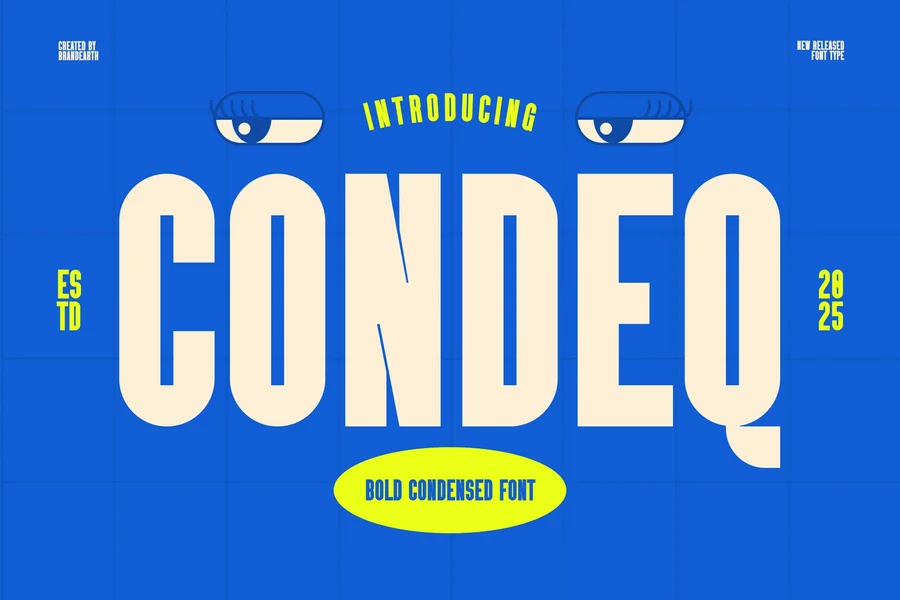
Condeq Bold Condensed
Condeq is a bold condensed display typeface with a powerful geometric build and assertive presence. Designed with blocky proportions, tight spacing, and clean vertical stress, it delivers immediate visual impact, perfect for loud headlines and expressive branding. Its uppercase-only set includes punctuation, numerals, and multilingual characters, offering flexible use across various languages and design formats. Optimized for both print and digital use, Condeq maintains sharp readability and strong identity even at smaller sizes or in high-contrast settings.
Ligatures & Alternate
Numeral & Punctuations